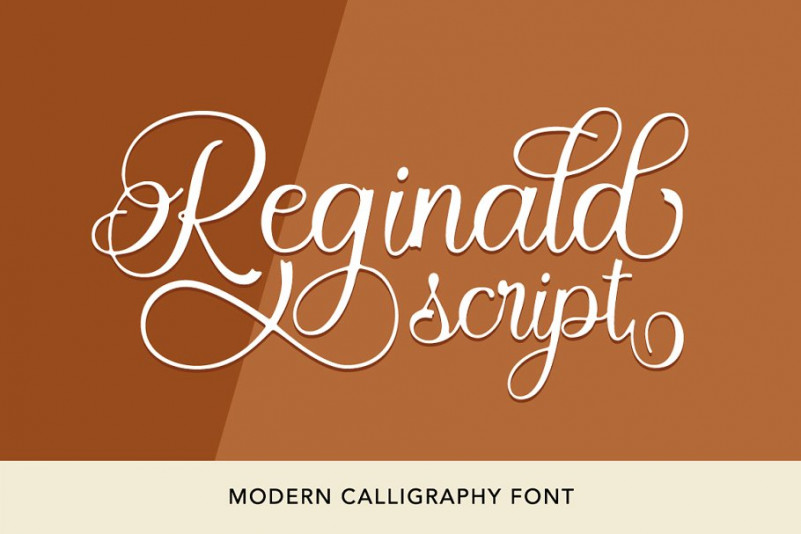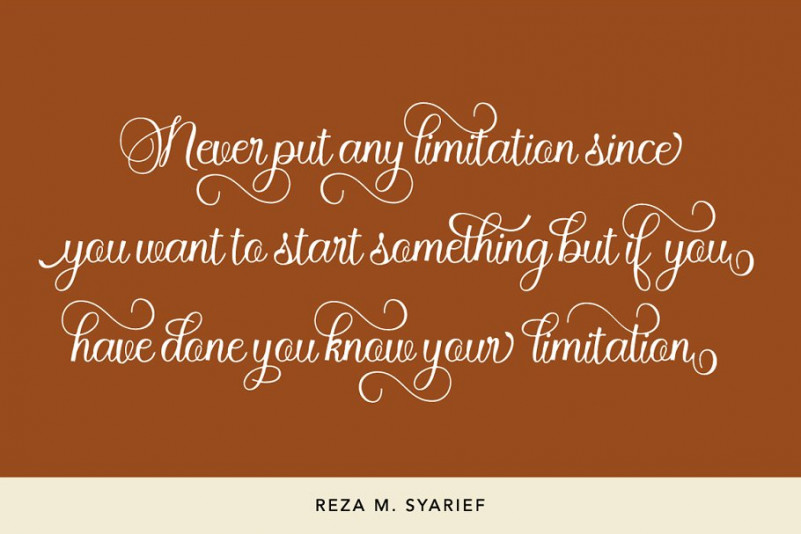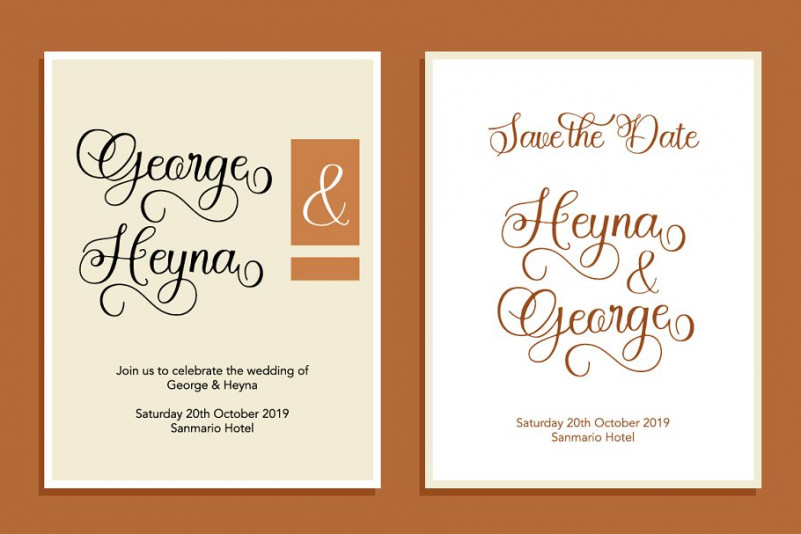
Reginald Font
Reginald Script is a lovingly modern script calligraphy, elegant and tasty flow. Features Open type feature, stylistic alternates, including initial and terminal letters, ligatures and International support for most Western Languages is included. Perfect to creating modern designs like ads, logos, branding, quotes, poster, wedding invitation and more. that makes the font look fabulous!